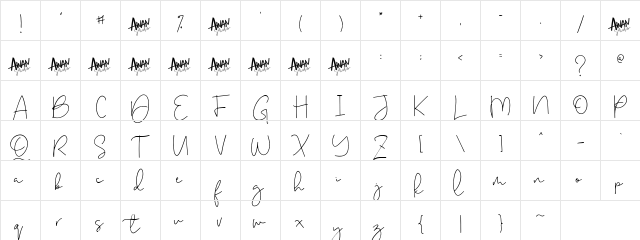
Melatti Regular
| Foundry | AwanStudio |
| Designer | AwanStudio |
Design Context for Melatti Typeface
Melatti is a composed and adaptable typeface that performs quietly and consistently across a wide range of design contexts.